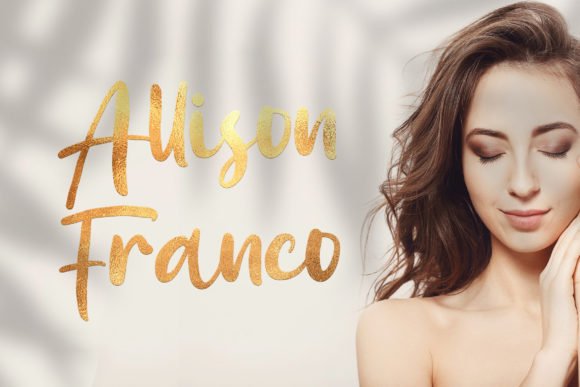
Allison Franco Font: Where Creativity Meets Whimsy
Do you ever find yourself staring at a blank page, searching for the perfect font to bring your design to life? It’s a moment we’ve all experienced at some point or another, and it’s what makes the discovery of the perfect font all the more thrilling.
Meet Allison Franco Font, a delightful script font that’s sure to put a smile on your face. With its charming, playful characters that seem to dance along the baseline, this font is perfect for adding a touch of whimsy to your most creative ideas. Whether you’re designing a logo, a wedding invitation, or a children’s book, Allison Franco Font is the perfect addition to make your design stand out.
For designers, Allison Franco Font is a valuable tool that can help take your designs to the next level. Its unique character and versatility make it a must-have in any design arsenal, and its ease of use makes it accessible to designers of all levels.
- Unique Characteristics: Features a modern, elegant script with subtle flair and connection between letters
Allison Franco Font Review
I’ve had the chance to work with the Allison Franco font, and I must say it’s a decent choice for certain design projects. ✨ One thing that stands out is its elegance and sophistication, making it perfect for high-end branding, fashion, or luxury products. The font’s sleek lines and refined curves create a sense of luxury and refinement.
However, there are some limitations to consider ⚠️. The font’s readability can be a concern in smaller sizes, which may lead to difficulties in reading the text. Additionally, the font’s style may not be suitable for projects that require a more playful or casual tone.
- ✨ Elegant and sophisticated design
- ✨ Perfect for high-end branding, fashion, or luxury products
- ⚠️ Limited readability in smaller sizes
- ⚠️ May not be suitable for playful or casual projects
In conclusion, the Allison Franco font is a solid choice for designers who want to create a high-end, luxurious look. While it may not be versatile enough for all types of projects, it’s certainly worth considering for the right type of design.
- Use it for headings and titles to add a touch of elegance.
- Pair it with a sans-serif font for body text to create a clean and modern look.
The Allison Franco Font is ideal for:
- Editorial and publishing projects.
Alternatives to Allison Franco Font
Lato Font is a sans-serif typeface designed by Łukasz Dziedzic. It’s a versatile font suitable for various design projects, including headings, body text, and titles. Lato Font is more condensed than Allison Franco Font, making it ideal for designs that require a more modern and sleek look.
Comparison: Lato Font is more modern and minimalistic, whereas Allison Franco Font has a more elegant and classic feel. Lato Font is also more suitable for digital designs, whereas Allison Franco Font is better suited for print materials.
Montserrat Font is a geometric sans-serif typeface designed by Julieta Ulanovsky. It’s a bold and modern font that’s perfect for headings, titles, and designs that require a strong visual impact. Montserrat Font is more geometric than Allison Franco Font, making it ideal for designs that require a sense of structure and order.
Comparison: Montserrat Font is more geometric and modern, whereas Allison Franco Font has a more organic and elegant feel. Montserrat Font is also more suitable for digital designs, whereas Allison Franco Font is better suited for print materials.
Open Sans Font is a sans-serif typeface designed by Steve Matteson. It’s a clean and modern font that’s suitable for various design projects, including body text, headings, and titles. Open Sans Font is more neutral than Allison Franco Font, making it ideal for designs that require a sense of simplicity and clarity.